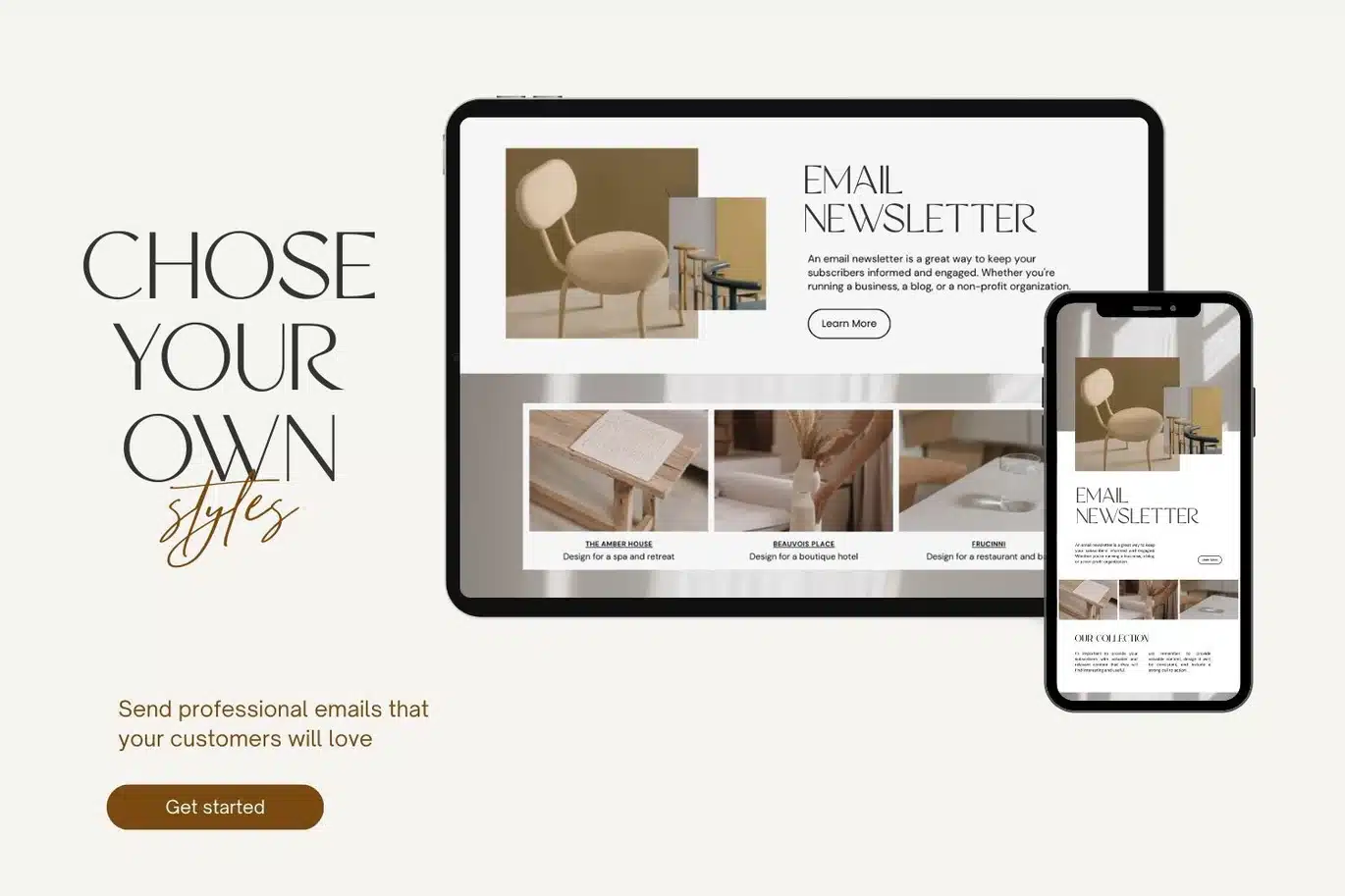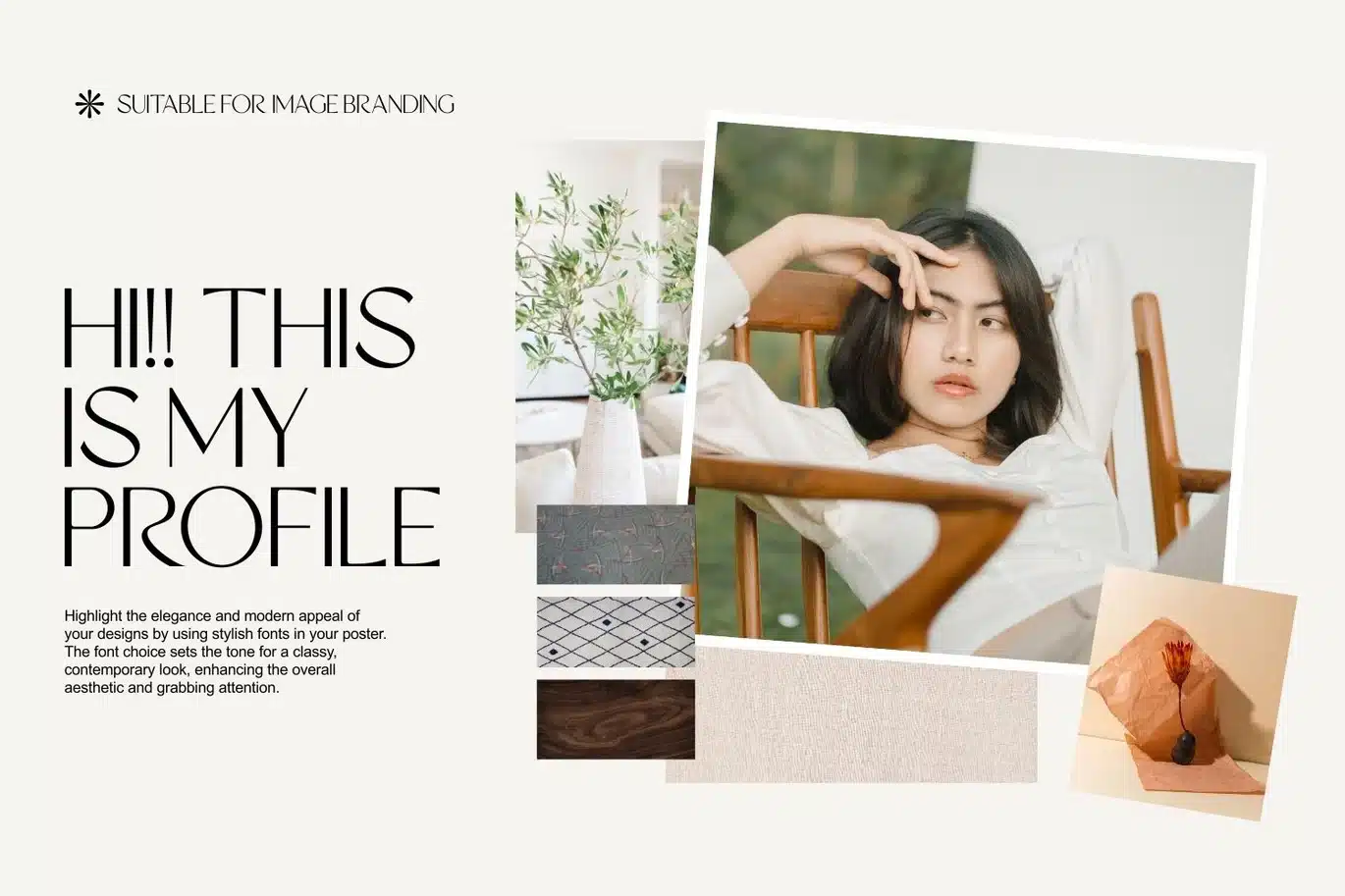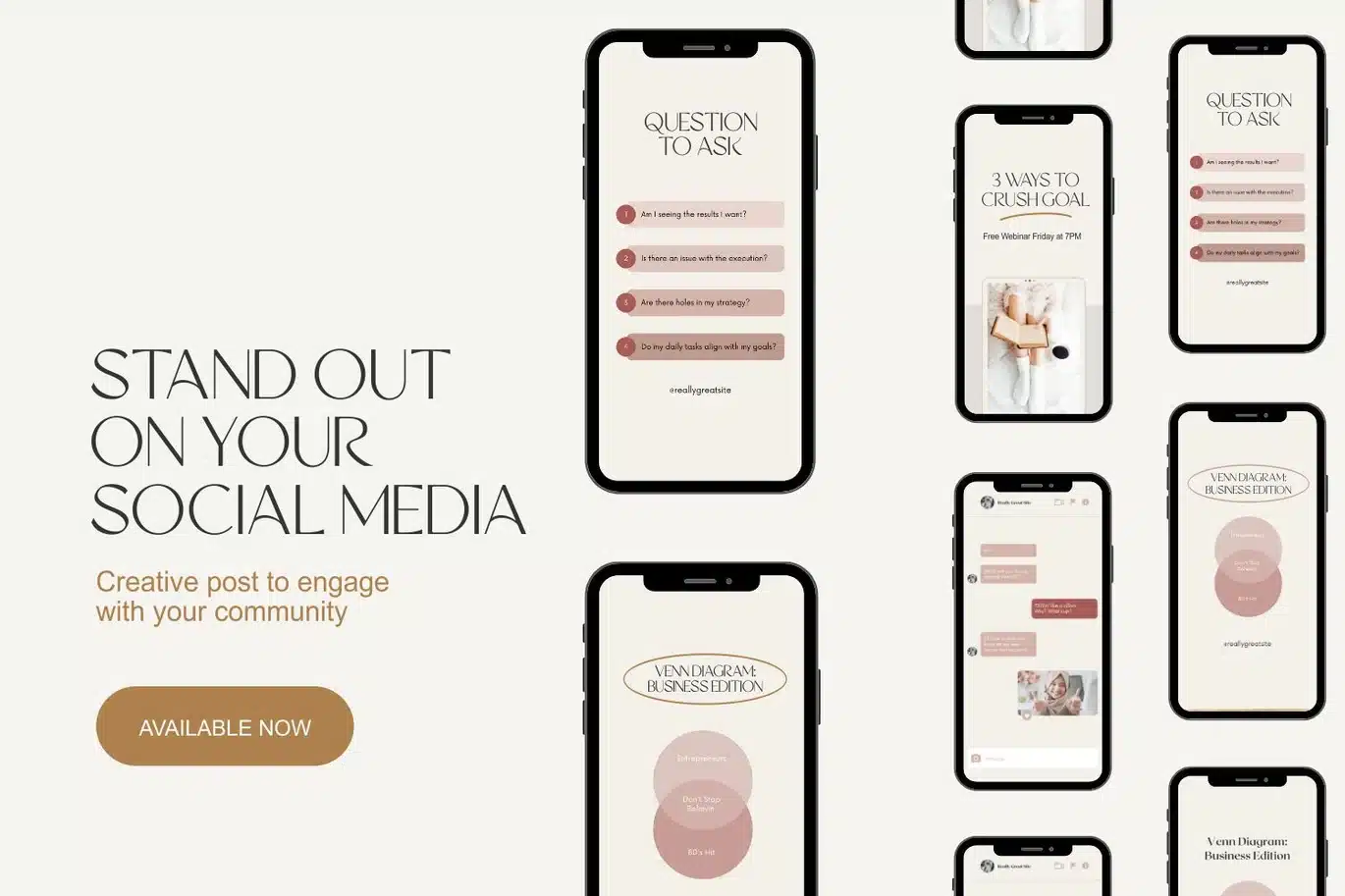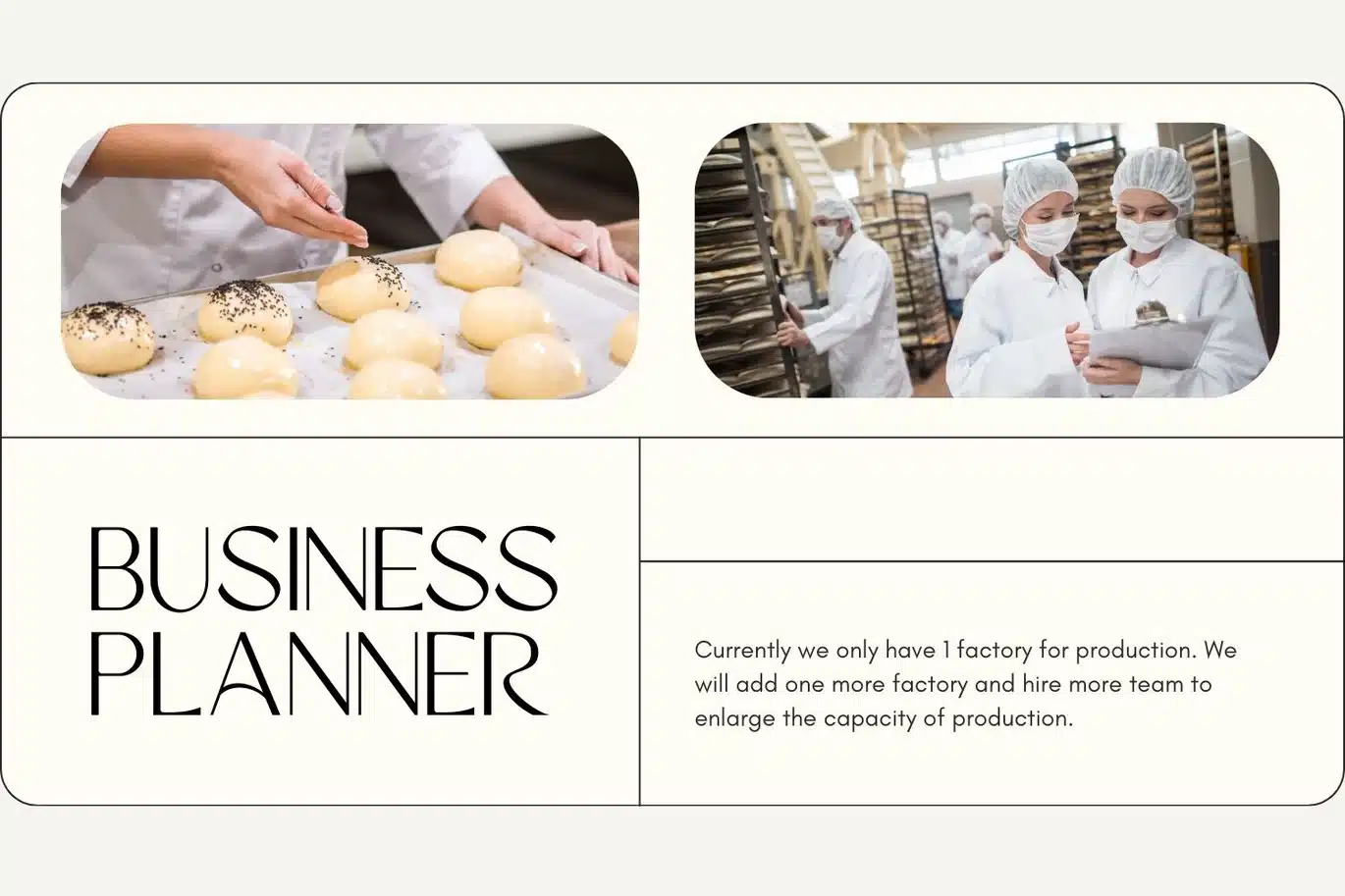
ERIAL | Simple Luxury Serif Font for Branding
Meet ERIAL, a sophisticated and modern serif font that brings a refined elegance to any project. Designed with versatility in mind, ERIAL is ideal for invitations, branding, and crafting, seamlessly blending classic charm with a contemporary edge. Perfect for wedding designs, event materials, Cricut projects, and beyond.
Crafted for ease across platforms like Cricut, Procreate, and Canva, this typeface integrates smoothly into digital and print designs alike. ERIALβs clean lines and delicate details make it a fitting choice for diverse creative needs, from formal event stationery to branding and digital content creation.
Key Features:
π Elegant & Modern Design: A timeless serif with a luxurious appearance, perfect for high-end projects.
π Ideal for Invitations & Events: A refined choice for wedding invites, branding, and formal designs.
π Complete Character Set: Includes uppercase and lowercase letters, punctuation, and more.
Perfect For:
π Wedding Invitations & Event Stationery: Infuse elegance into your special occasions.
π Cricut & Procreate Projects: A versatile choice for digital designs and crafting.
π Branding, Presentations & Logos: Elevate visuals with a sophisticated serif aesthetic.
π Social Media & Marketing Content: Make a statement with clean, refined typography.
Additional Features:
β
Multilingual support
β
Uppercase alphabet A-Z
β
Lowercase alphabet a-z
β
Alternate Characters
β
Numbers 0-9
β
Selected punctuation
Enhance your design toolkit with ERIAL, a font that brings refined style and sophistication to every project, allowing you to create with an elegant, modern edge.